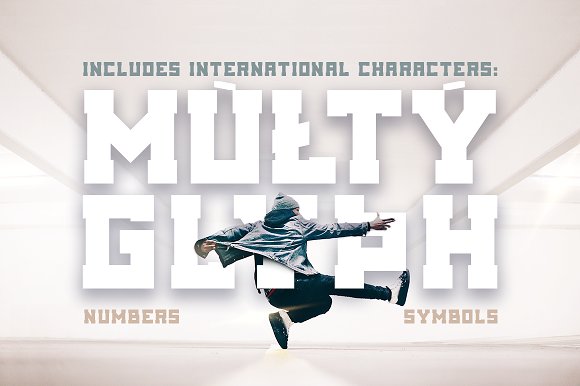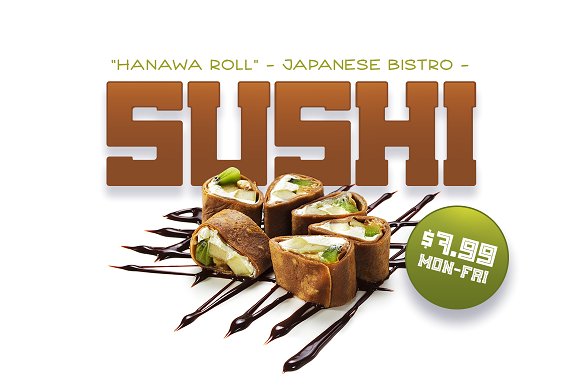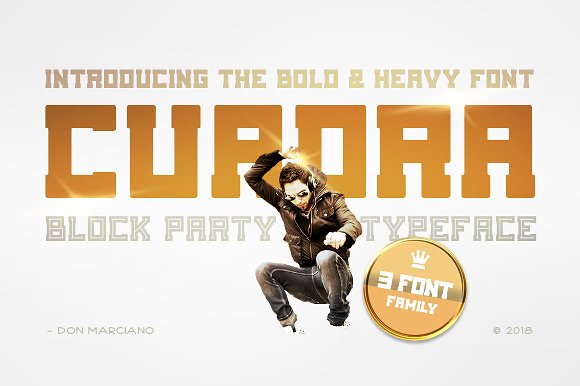
Cuadra – Block Font
Cuadra is a bold and heavy display font inspired by the party at night lifestyle from the urban scene crowd and it comes in 3 variants, all in .OTF format. You can find link to download free version here @